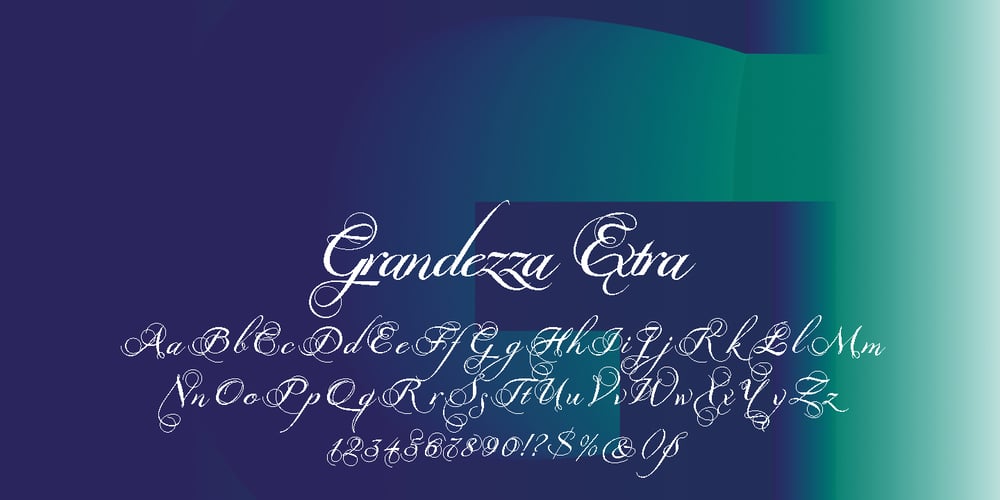
Grandezza Xtra
Grandezza Xtra font
Grandezza Xtra Font Family was designed by Gert Wiescher and published by Wiescher Design. Grandezza Xtra contains 1 styles and family package options. Grandezza Xtra is the standalone version of my most elaborate script. It is the script for many countries, good for Basic Latin, Latin Eastern Europe, Turkish, Baltic. I first designed 5 different sets and now this Xtra version which has a second set of capitals in the place of the smallcaps. This Xtra set is sufficient for most design jobs. If you need more you can always buy the standard Grandezza 5-font set for the reduced price. -Your script designer, Gert Wiescher